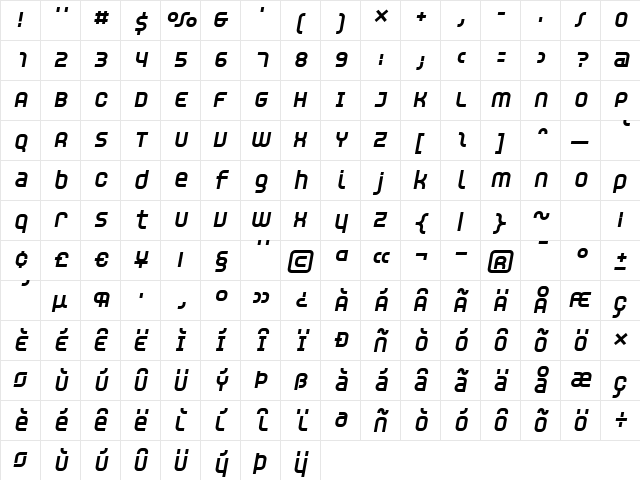
Unisect ExtraBoldOblique Font Preview
| Foundry | YouWorkForThem |
| Designer | Michael Cina |
Design Context for Unisect Typeface
Unisect takes a measured approach to typography — its balanced proportions and neutral character make it a reliable workhorse for both digital and print work. Its italic angle brings a sense of urgency and motion to the letterforms. Its bold stroke weight gives it real presence on the page.